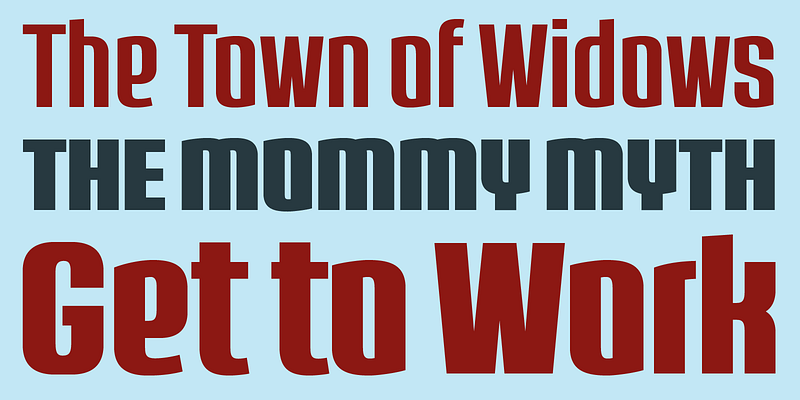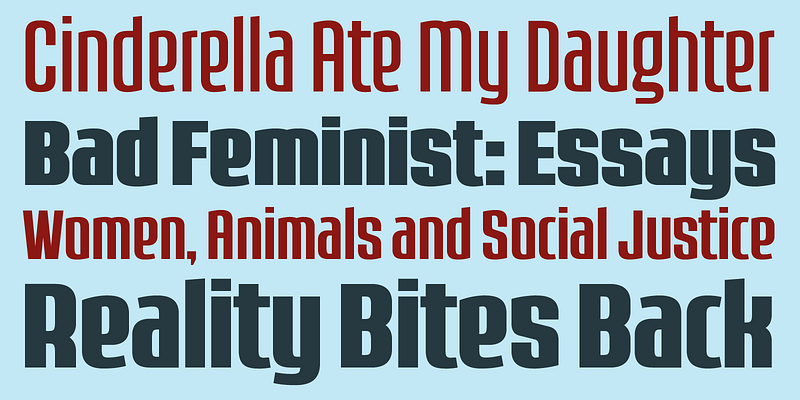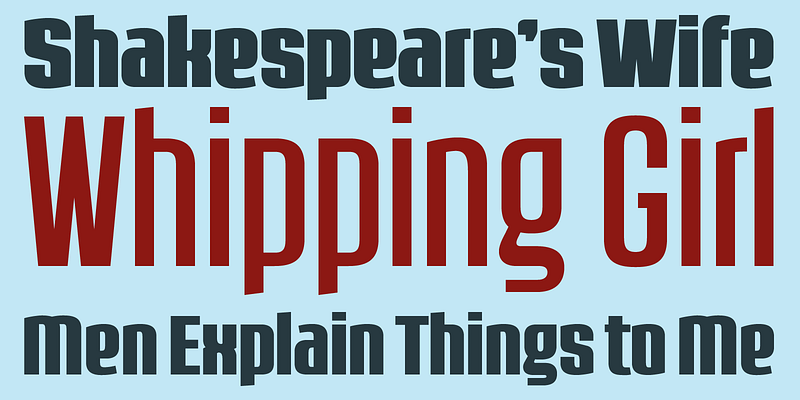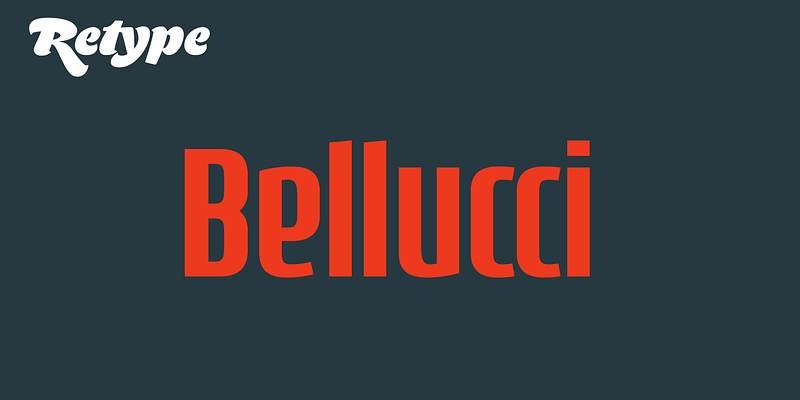
Bellucci is the redesign of Ramiro Espinoza’s first typeface, Mabella. This experimental alphabet was used for some time as headline font in ‘Jazz’, an e-zine. Being not happy with the original design, he decided to redraw it completely and add 3 new weights. Bellucci is a constructivist, modular, compressed family intended for headlines and posters. The name is an homage to Mabel Bellucci, an Argentinian feminist activist.